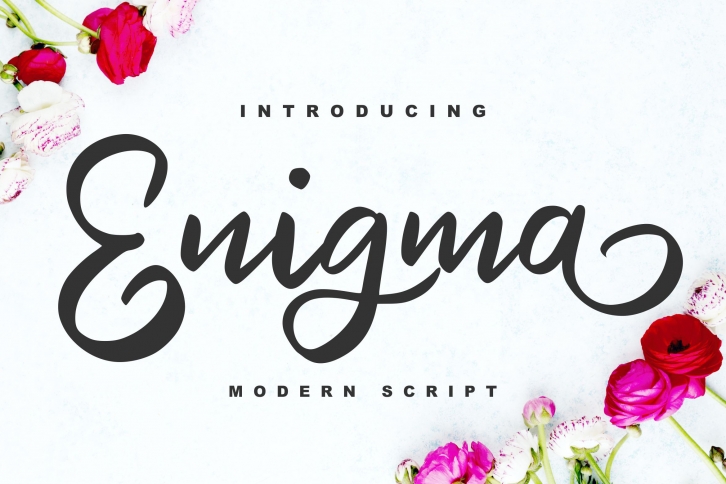
Enigma is a trendy and unique font with an authentic style. It was designed by Vunira and it's a great choice for creative people who need such a font. It was released on July 7, 2019 and the file size is 21.42 MB. Enigma will add an organic vibe to any design idea!